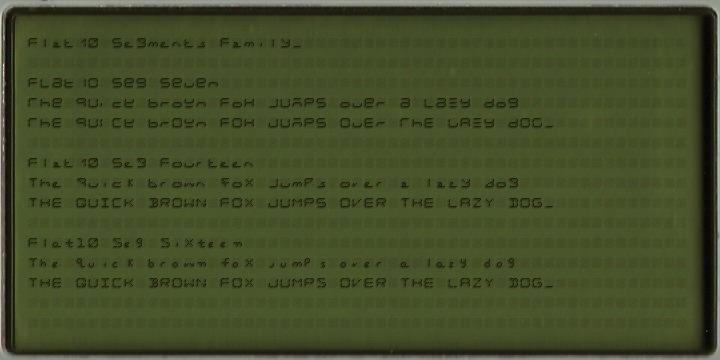
This 8-bit pixel font is designed with respect for 80s game designers and the pixel font pioneers in middle 90s.
Use at size 10 pixels or multiples of 10 with anti-alias off is recommended.